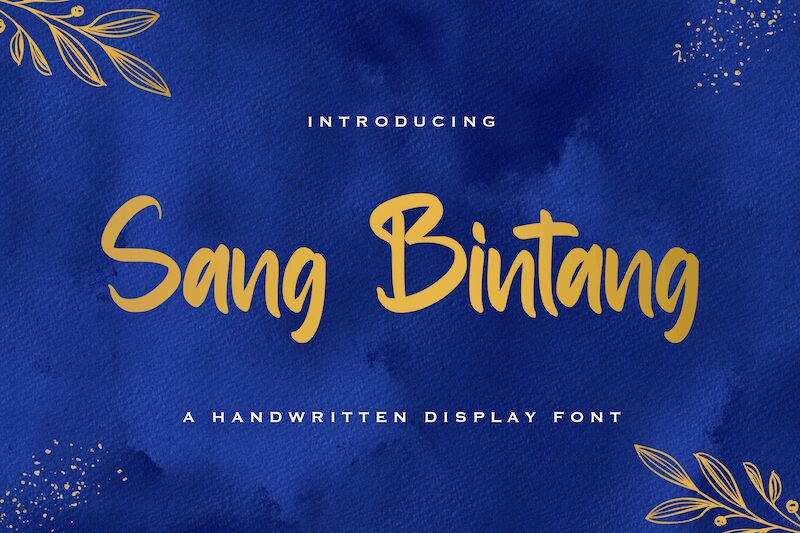
Sang Bintang
Sang Bintang is a beautiful handwritten font designed by Virgiawan Listanto. Its light weight gives it an elegant, graceful feel perfect for invitations, greeting cards, quotes and other creative projects. It also makes a great choice for any modern designs that need a light, airy touch.